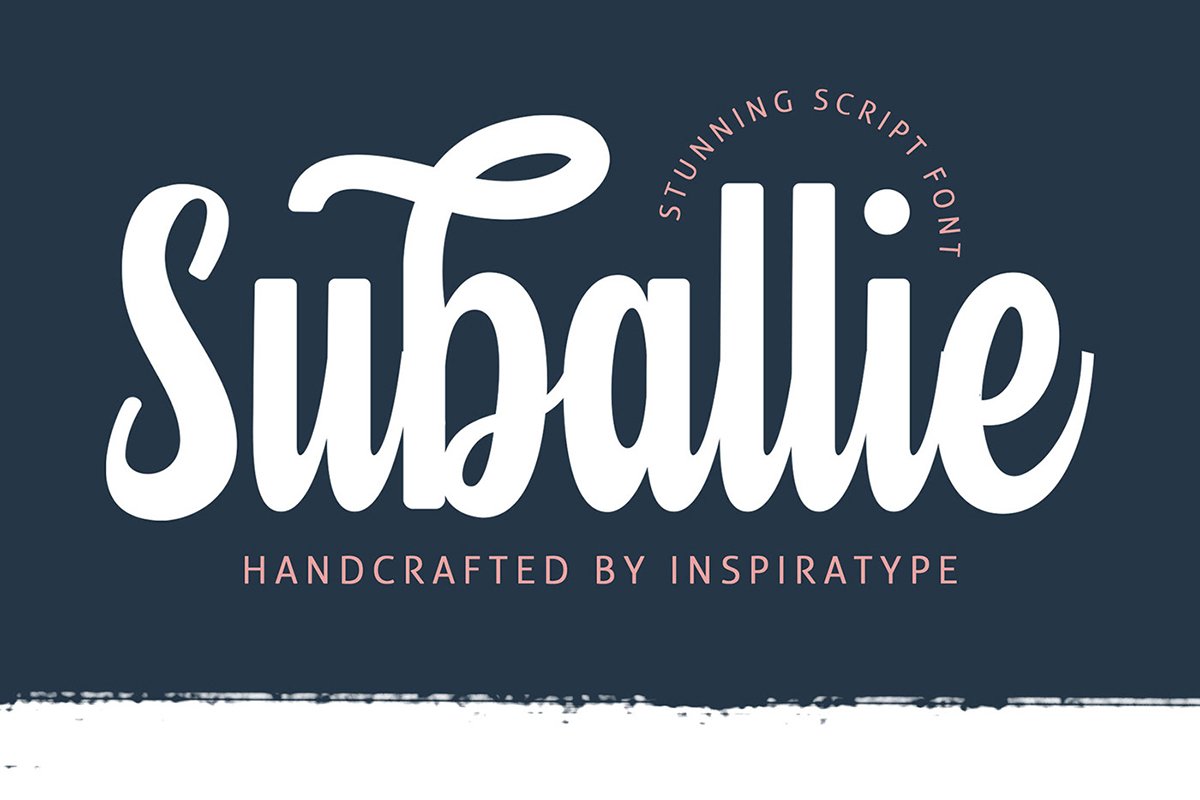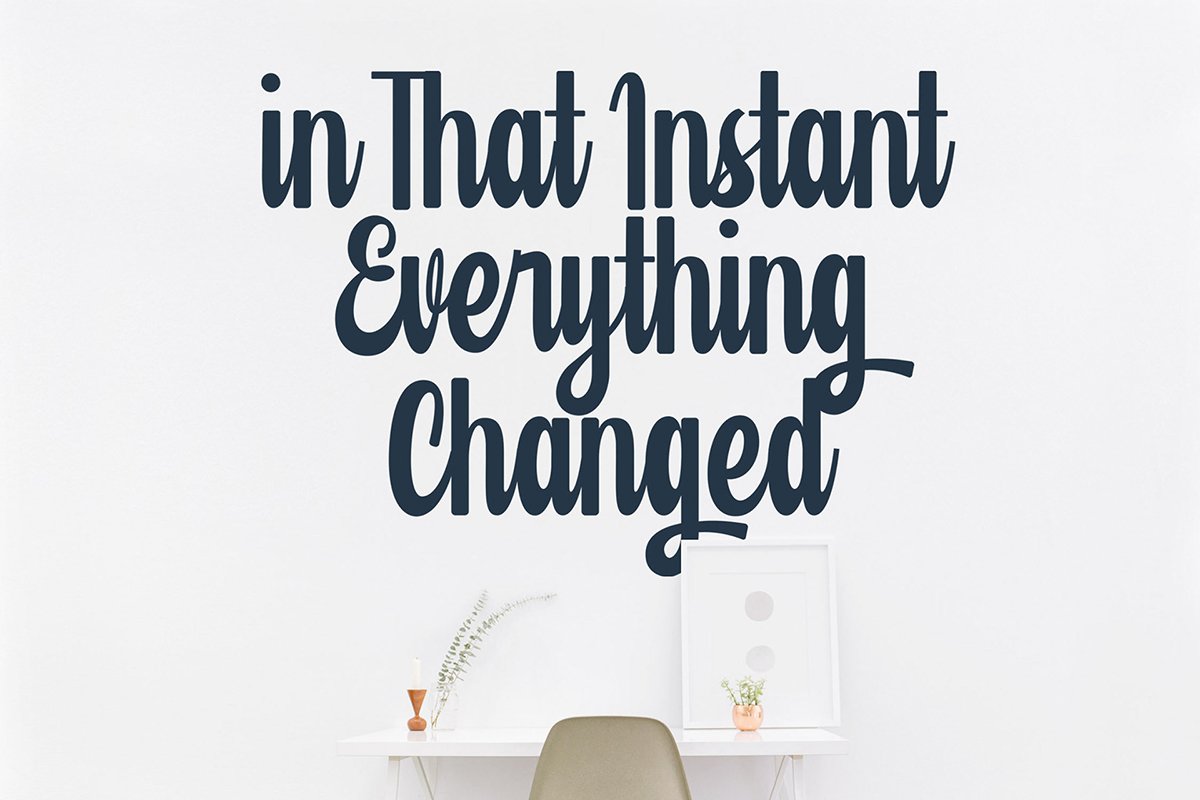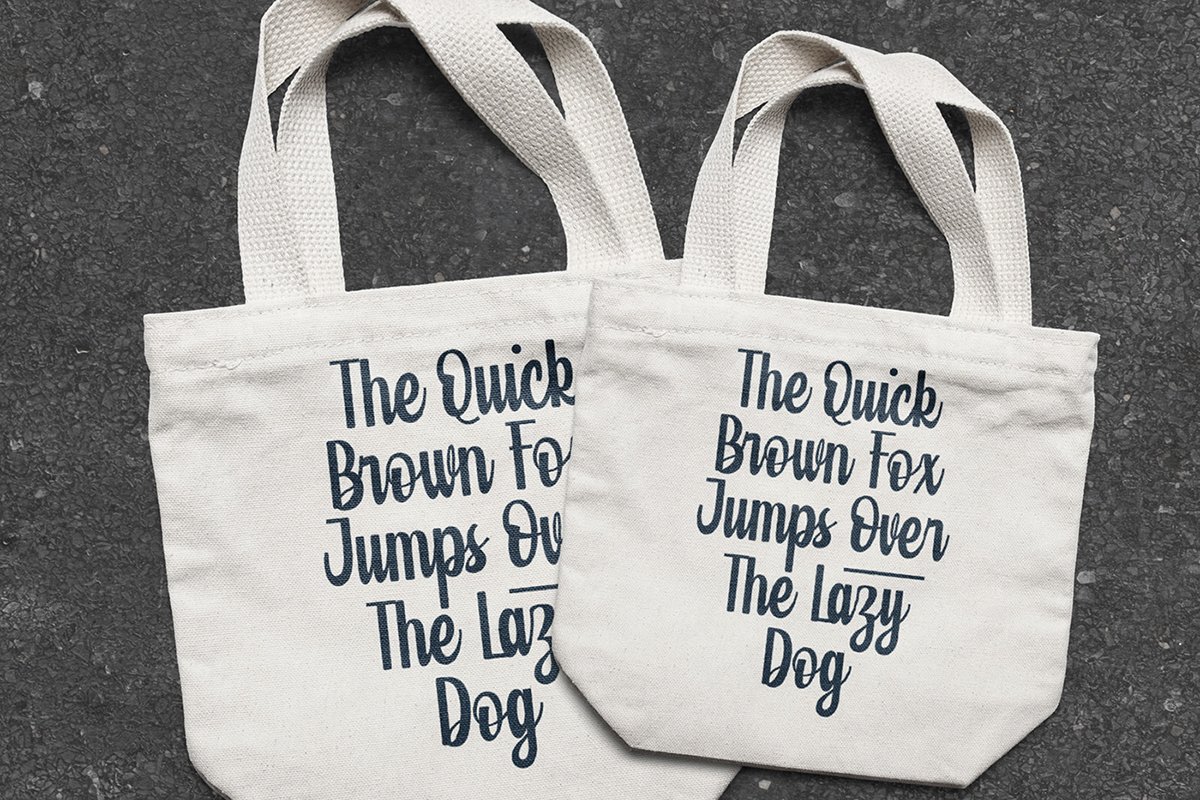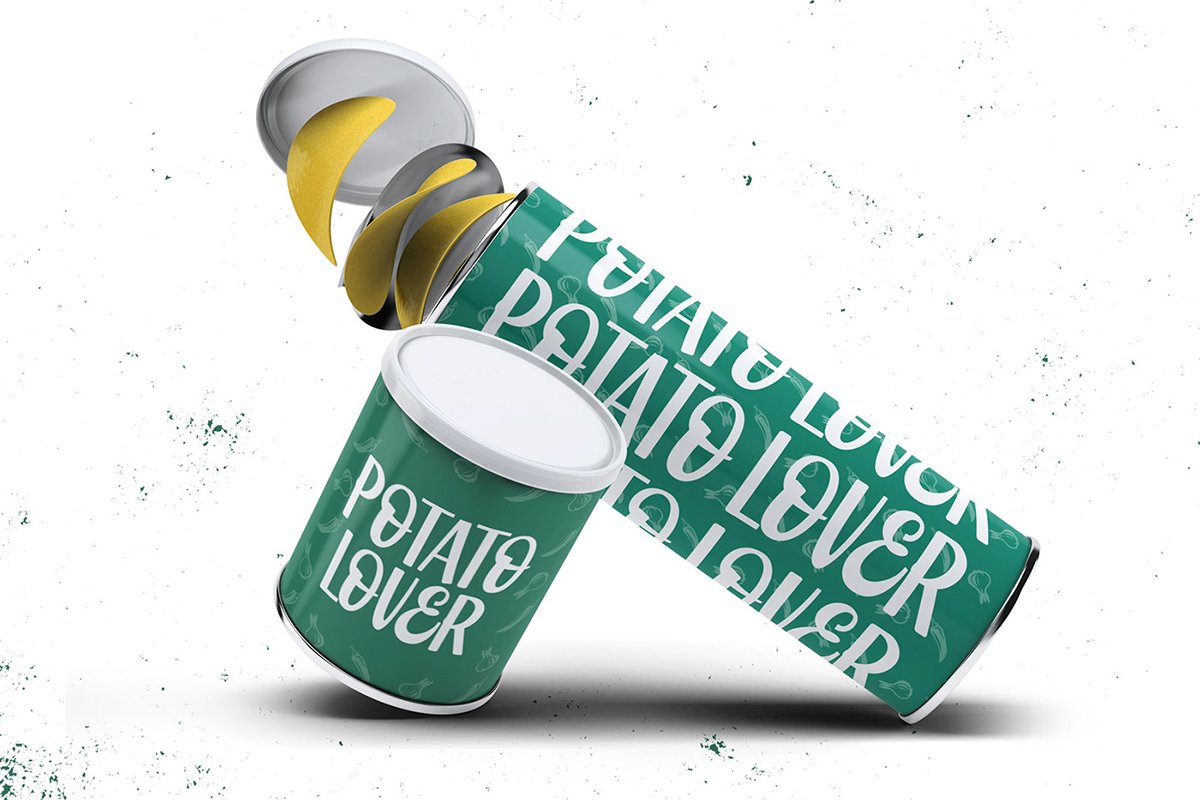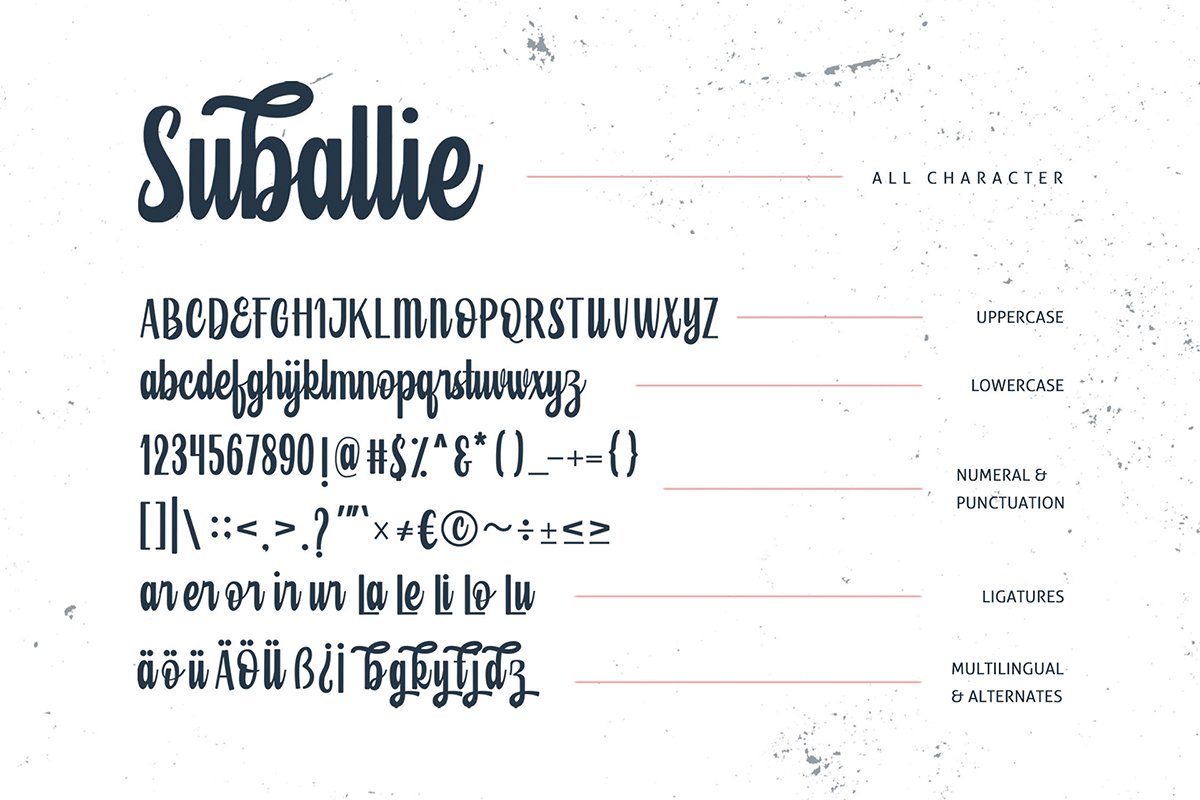
Free Suballie Script Font is a stunning hand-made font that takes classic posters as its inspiration. This demo font is perfect for your design project that has the concept of fun, brave, and sporty. It can also be applied to the design of a logotype, header website, make some lettering a quote, t-shirt design, etc.
Suballie